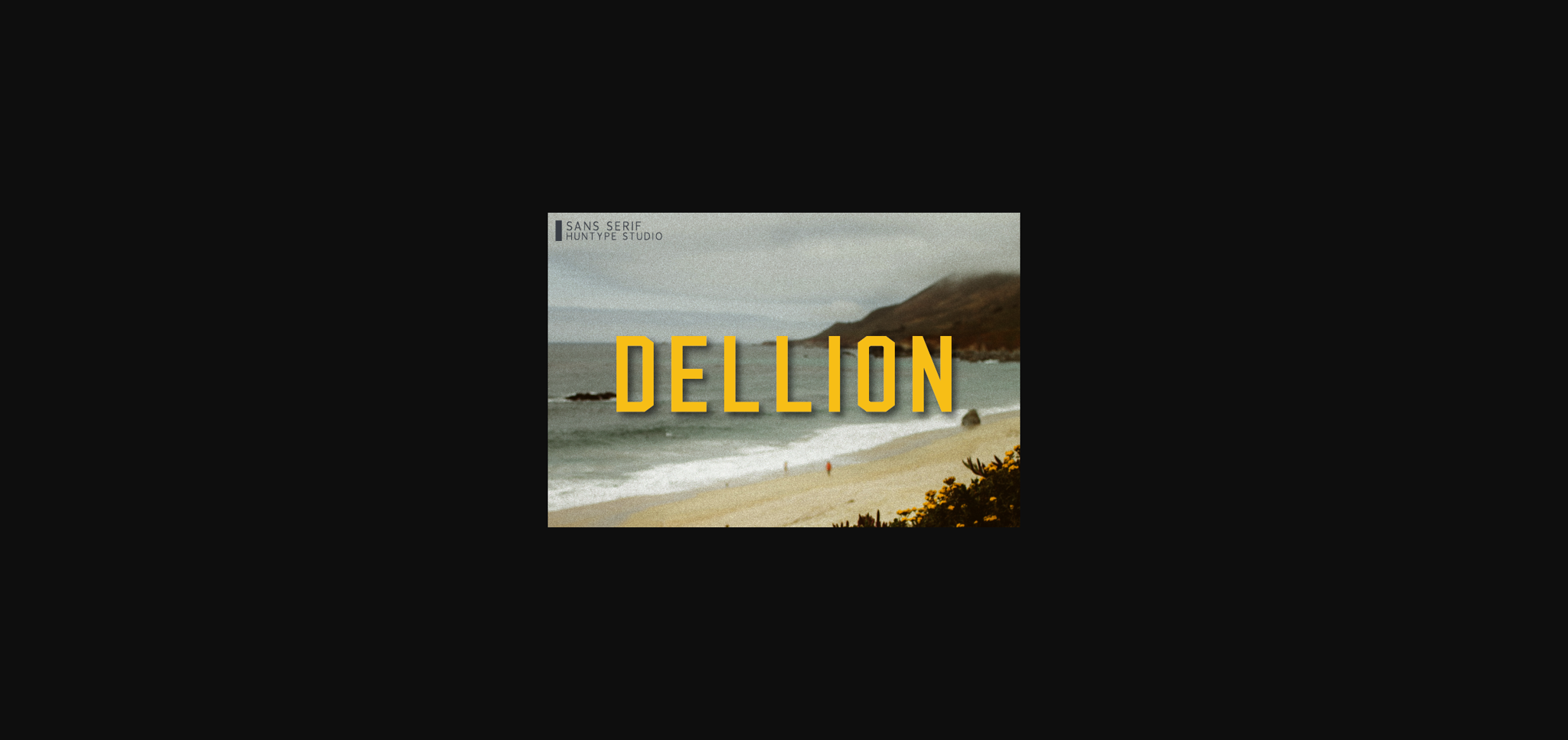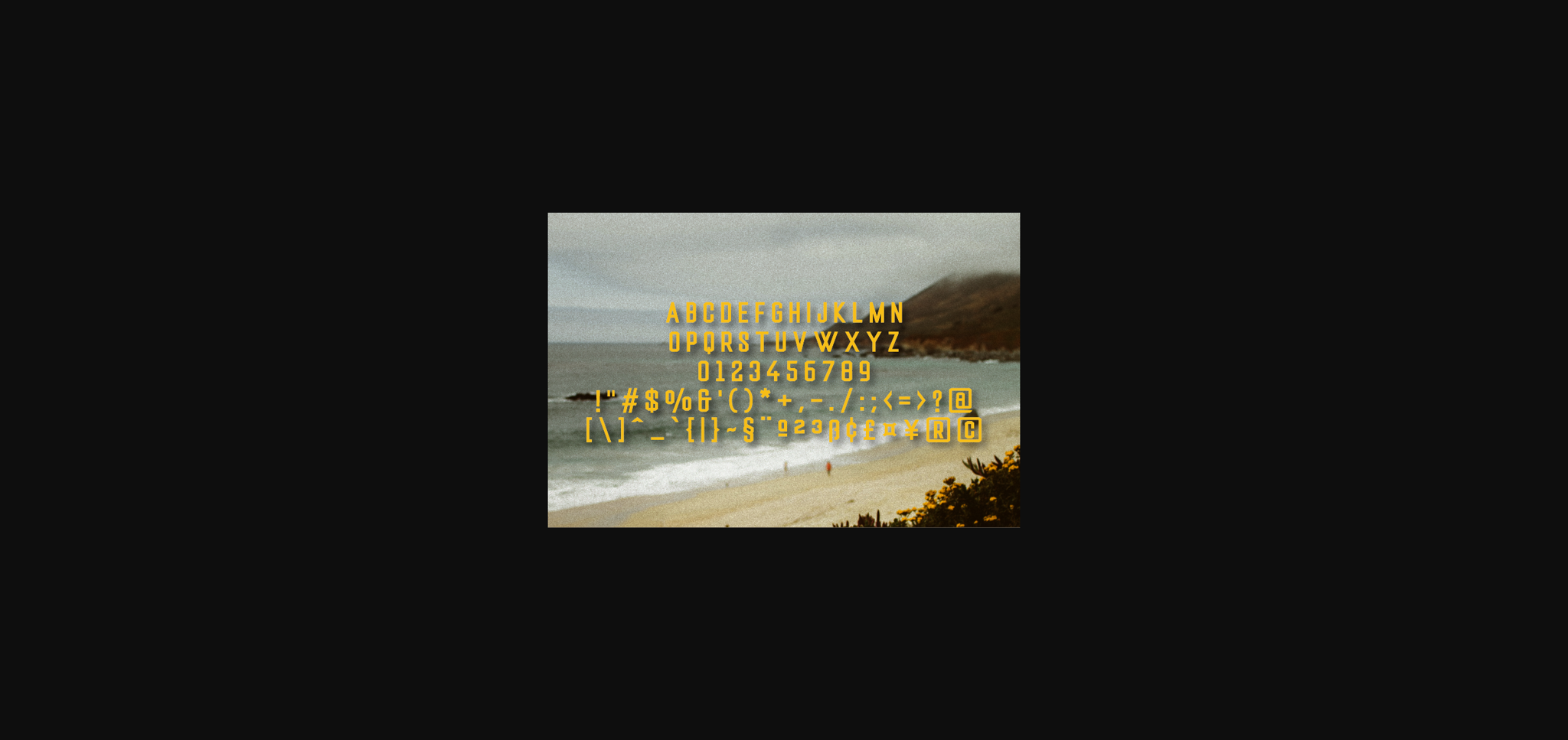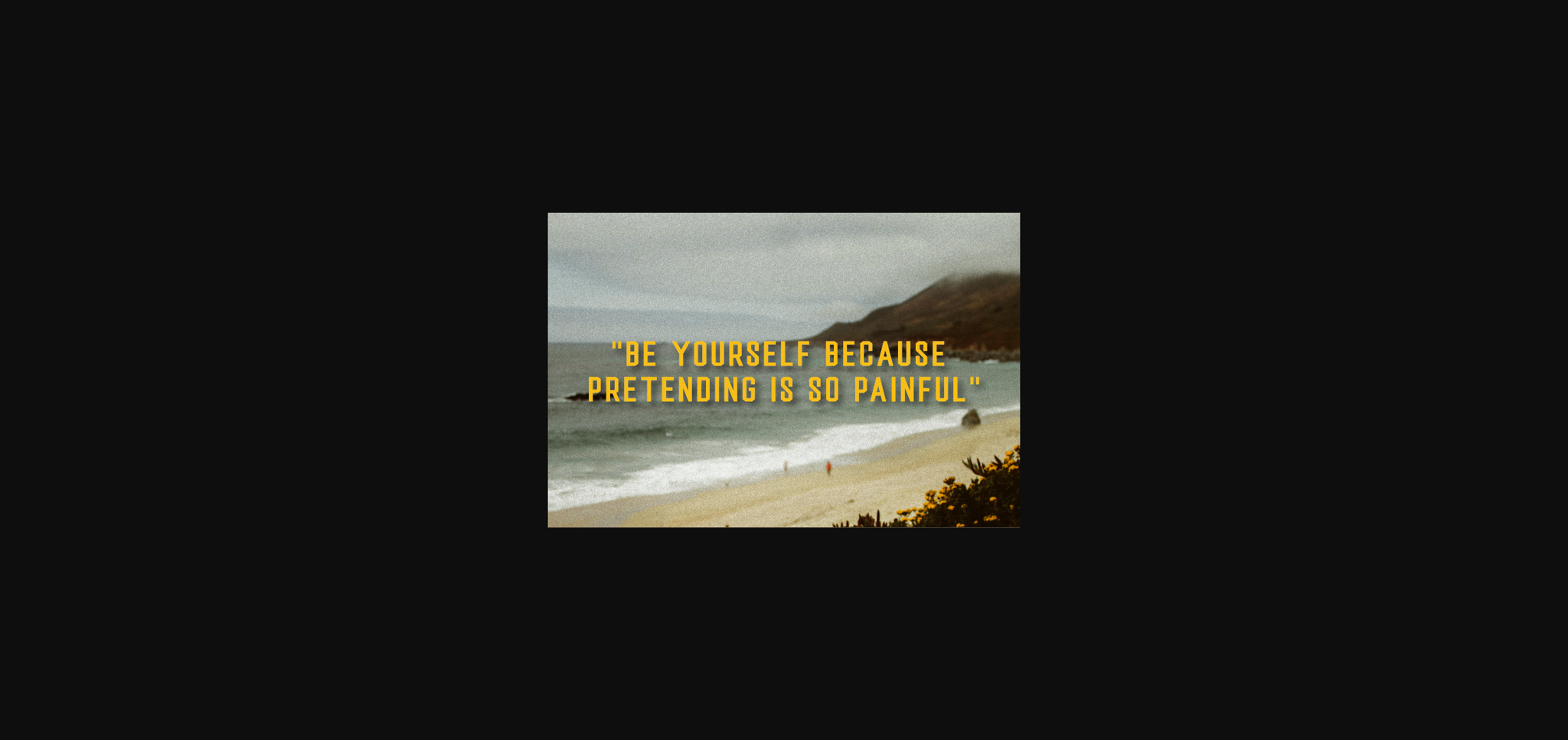
Dellion is a sophisticated sans serif font. It features chunky and extended characters that will look particularly adept when used in logos, branding, packaging design, and much more.